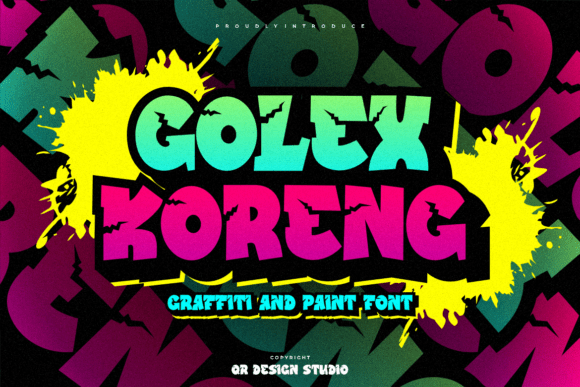
Golex Koreng Font: Unleashing Explosive Graffiti Style
In the vibrant world of typography, few fonts manage to capture the raw energy and rebellious spirit of urban graffiti as effectively as the Golex Koreng font. This explosive graffiti and paint font is loaded with energy, contrast, and urban flair, making it the perfect choice for designers looking to add a bold, edgy touch to their projects. With its bold, jagged characters and paint-splatter effects, Golex Koreng is an ideal fit for underground designs, music posters, youth brands, and digital artwork that demands attention.
The Urban Edge of Golex Koreng
Golex Koreng embodies the dynamic personality of graffiti art. Its bold, jagged characters seem to leap off the page, as if freshly spray-painted onto a city wall. The font’s design is a masterful blend of contrasting elements — smooth, fluid lines juxtaposed with sharp, jagged edges — creating a visually striking effect that demands attention. The paint-splatter effects add an extra layer of realism and grit, transporting the viewer to the streets where graffiti art comes alive.
Perfect for Underground Designs and Youth Brands
Golex Koreng’s explosive style makes it a natural fit for underground designs and youth brands. The font’s bold, attention-grabbing aesthetic is tailor-made for music posters, album covers, and promotional materials targeting a younger audience. Its urban edge and graffiti-inspired vibe also make it an excellent choice for fashion brands, skate and surf labels, and any business looking to project a bold, youthful image.
Key Features of Golex Koreng
- Bold, jagged characters: Golex Koreng’s characters are designed to stand out, with sharp, jagged edges that evoke the raw energy of graffiti art.
- Paint-splatter effects: The font’s paint-splatter effects add a layer of realism and grit, giving your designs an authentic, street-art feel.
- Urban flair: Golex Koreng’s design is infused with the spirit of urban graffiti, making it perfect for projects that require a bold, edgy aesthetic.
- Dynamic personality: The font’s explosive style and energetic vibe make it perfect for designs that demand attention and exude confidence.
Tips for Using Golex Koreng Effectively
To get the most out of Golex Koreng, consider the following tips:
- Use it sparingly: Due to its bold, attention-grabbing nature, Golex Koreng works best when used sparingly. Use it as a headline font or for key messaging, and pair it with a simpler font for body text.
- Experiment with colors: Golex Koreng’s paint-splatter effects work best with bold, vibrant colors. Experiment with different color combinations to create a unique look that matches your brand’s aesthetic.
- Combine with images: Golex Koreng pairs well with urban, gritty images. Consider combining it with photos or illustrations that reflect the font’s edgy personality.
Inspirations and Applications
Golex Koreng’s unique style draws inspiration from the urban landscape and the world of graffiti art. Its applications are diverse, ranging from:
- Music posters and album covers: Golex Koreng’s bold, attention-grabbing aesthetic makes it perfect for promoting music events, albums, or concerts.
- Fashion and lifestyle brands: The font’s urban edge and graffiti-inspired vibe make it an excellent fit for fashion brands, skate and surf labels, and other businesses targeting a youthful audience.
- Digital artwork and illustration: Golex Koreng’s dynamic personality and bold style make it a great fit for digital artwork, illustrations, and mixed media projects.
Golex Koreng is more than just a font — it’s a statement. Its explosive graffiti style, bold characters, and paint-splatter effects make it the perfect choice for designers looking to add a touch of urban grit to their projects. With its dynamic personality and attention-grabbing aesthetic, Golex Koreng is sure to make your designs stand out. Whether you’re working on underground designs, music posters, youth brands, or digital artwork, Golex Koreng is the perfect tool to unleash your creativity and make a lasting impression.